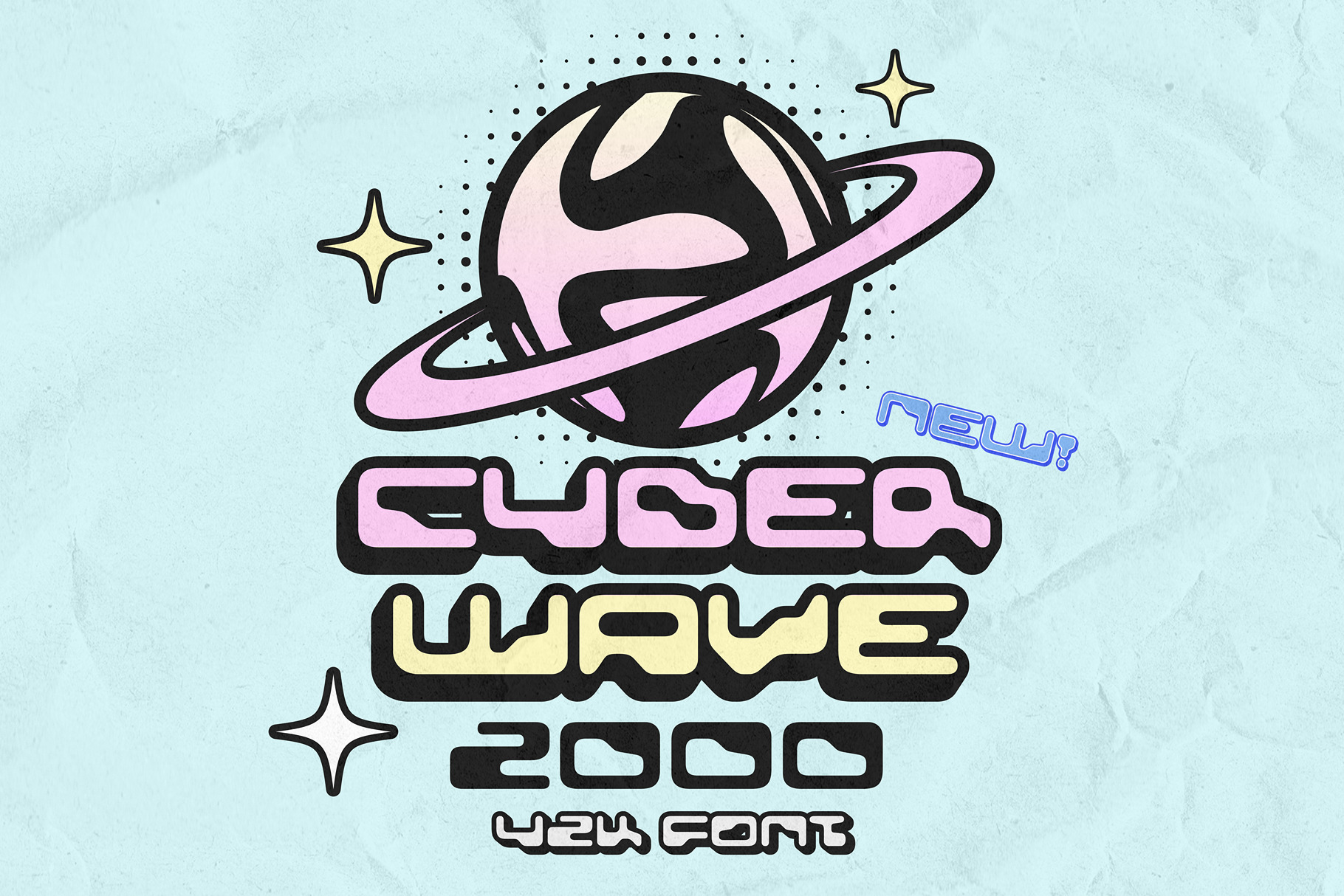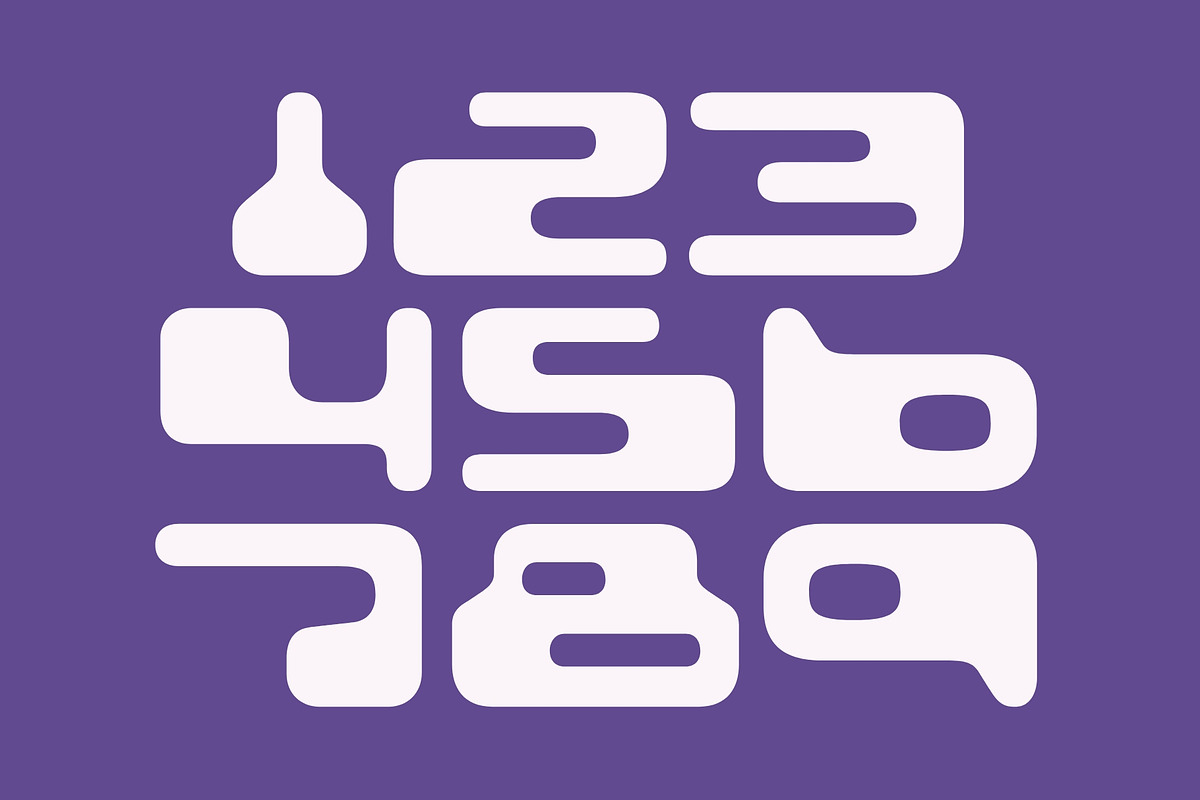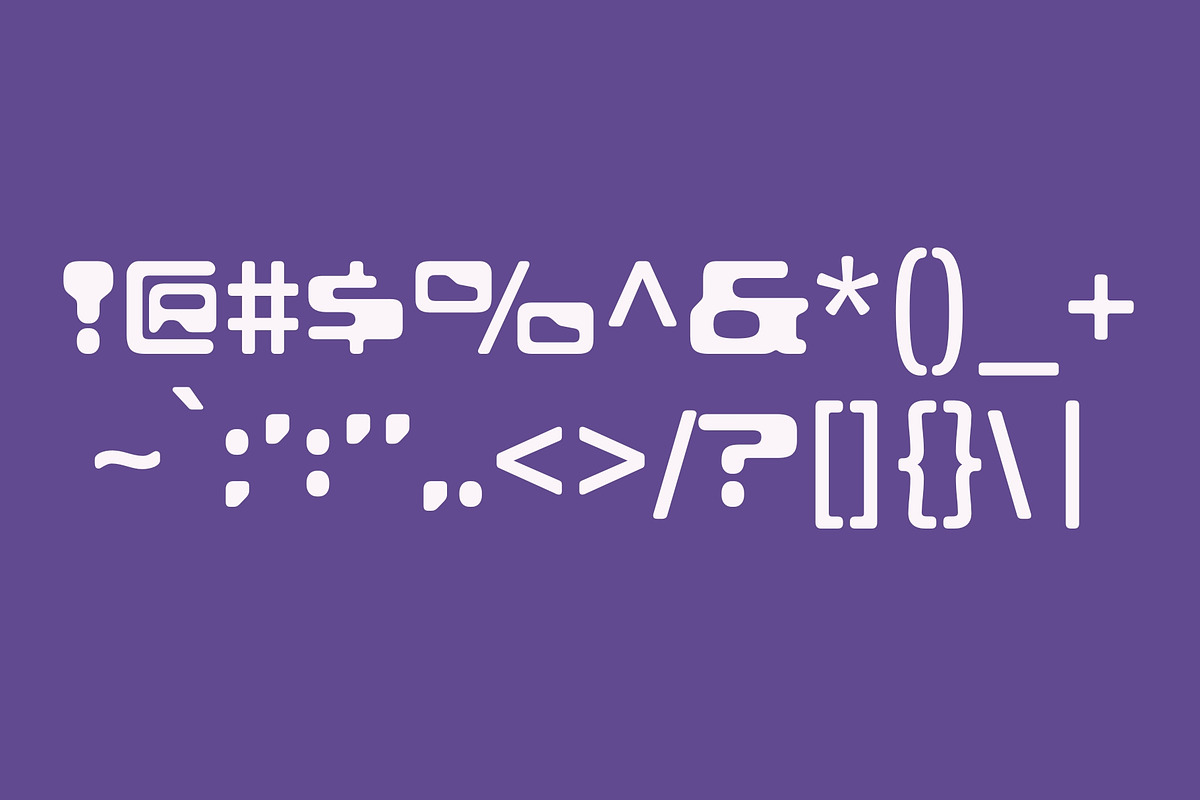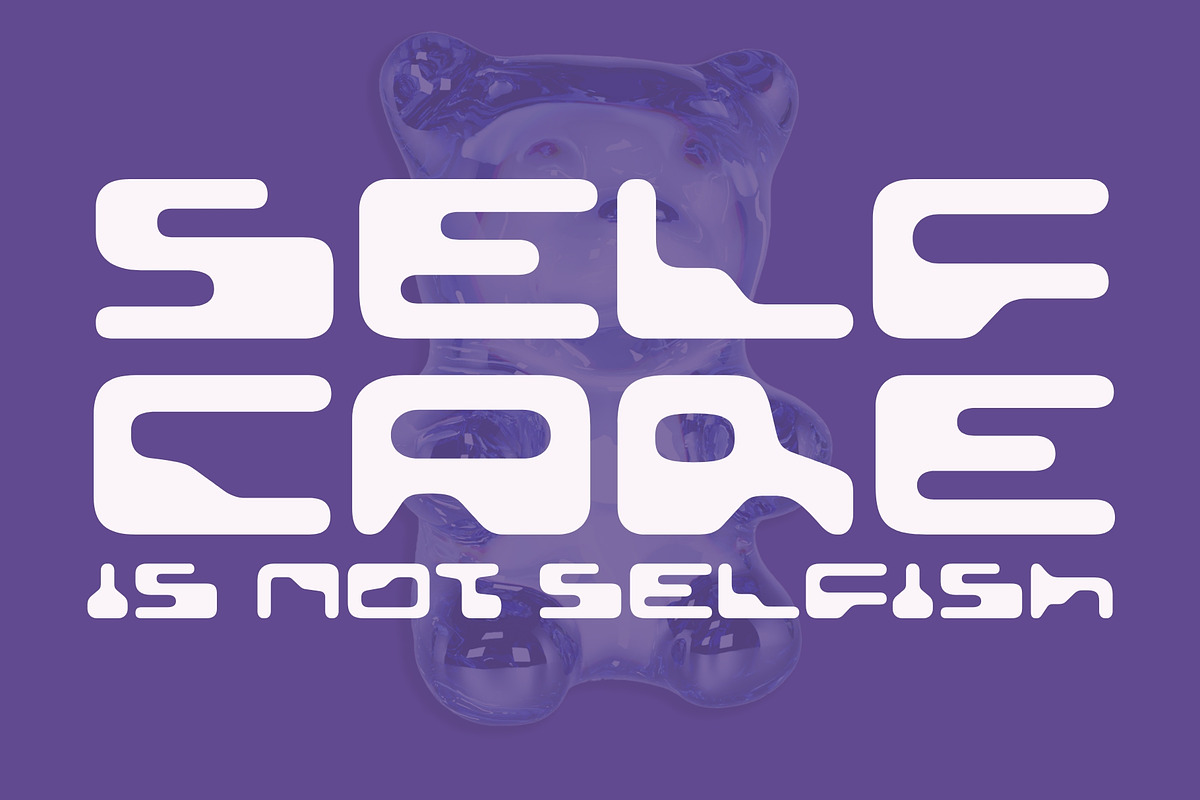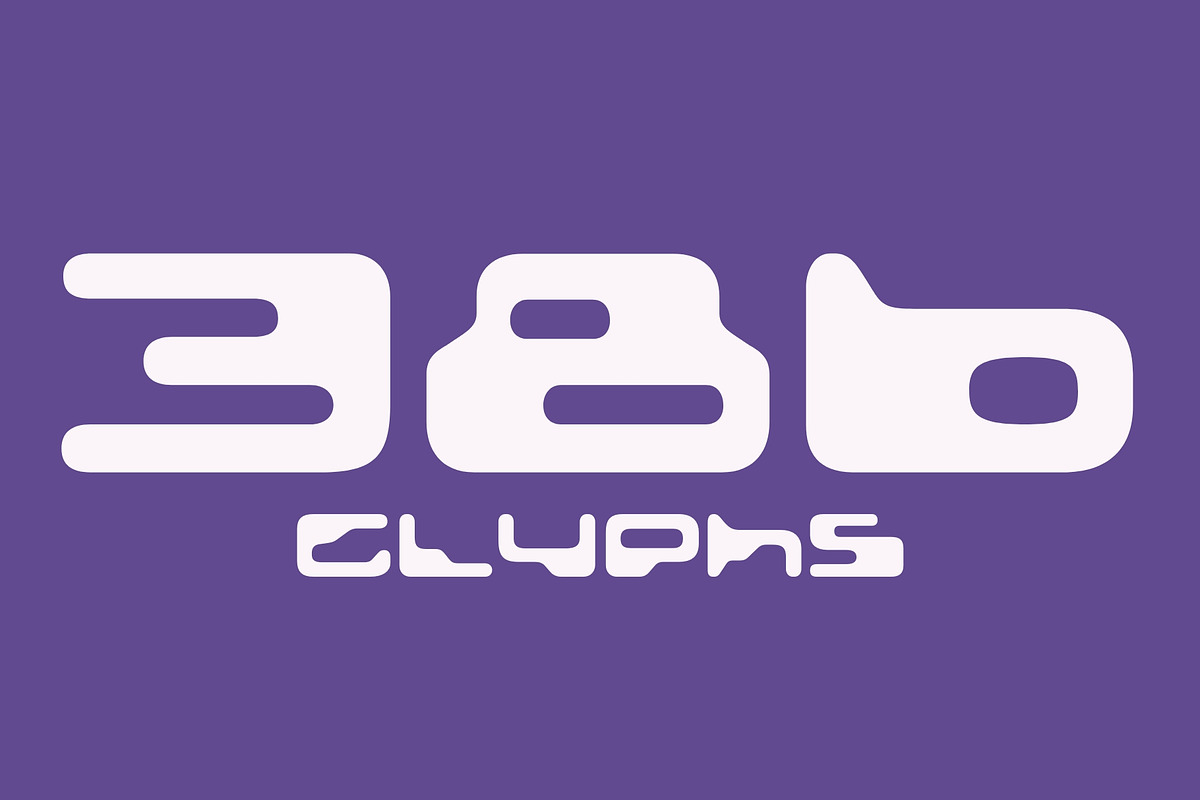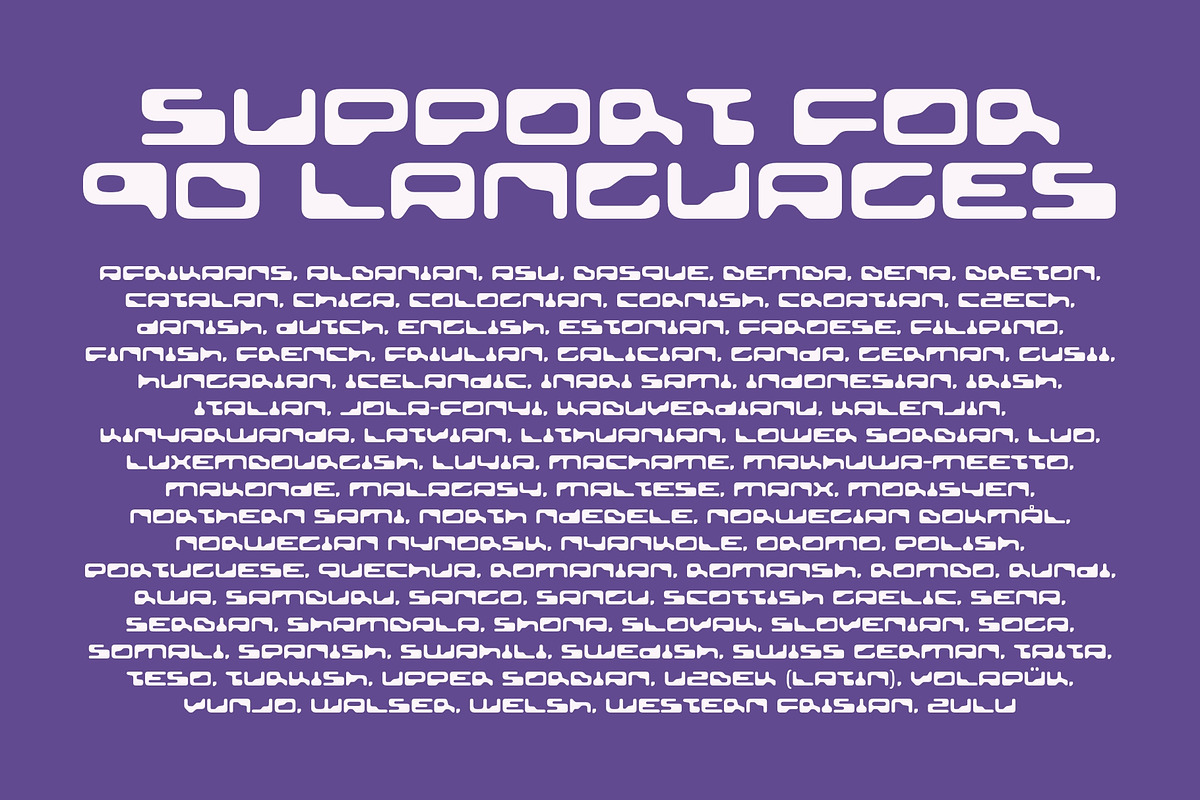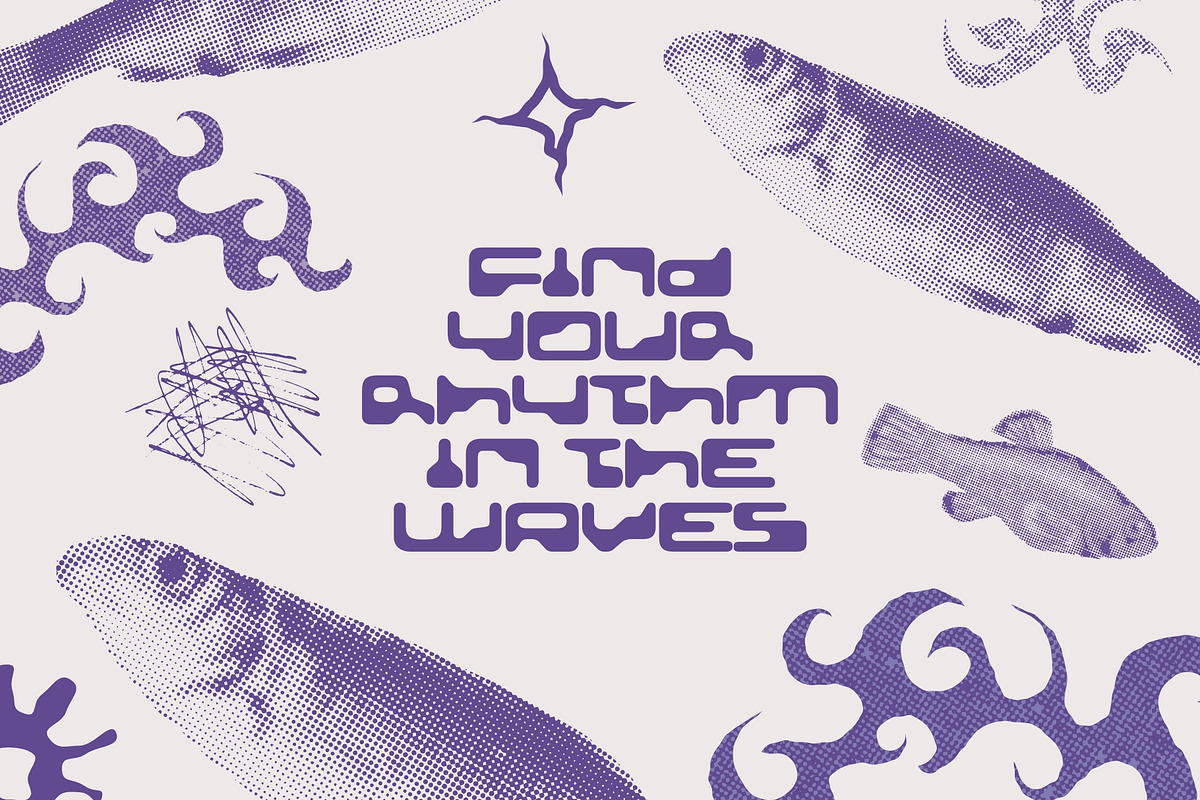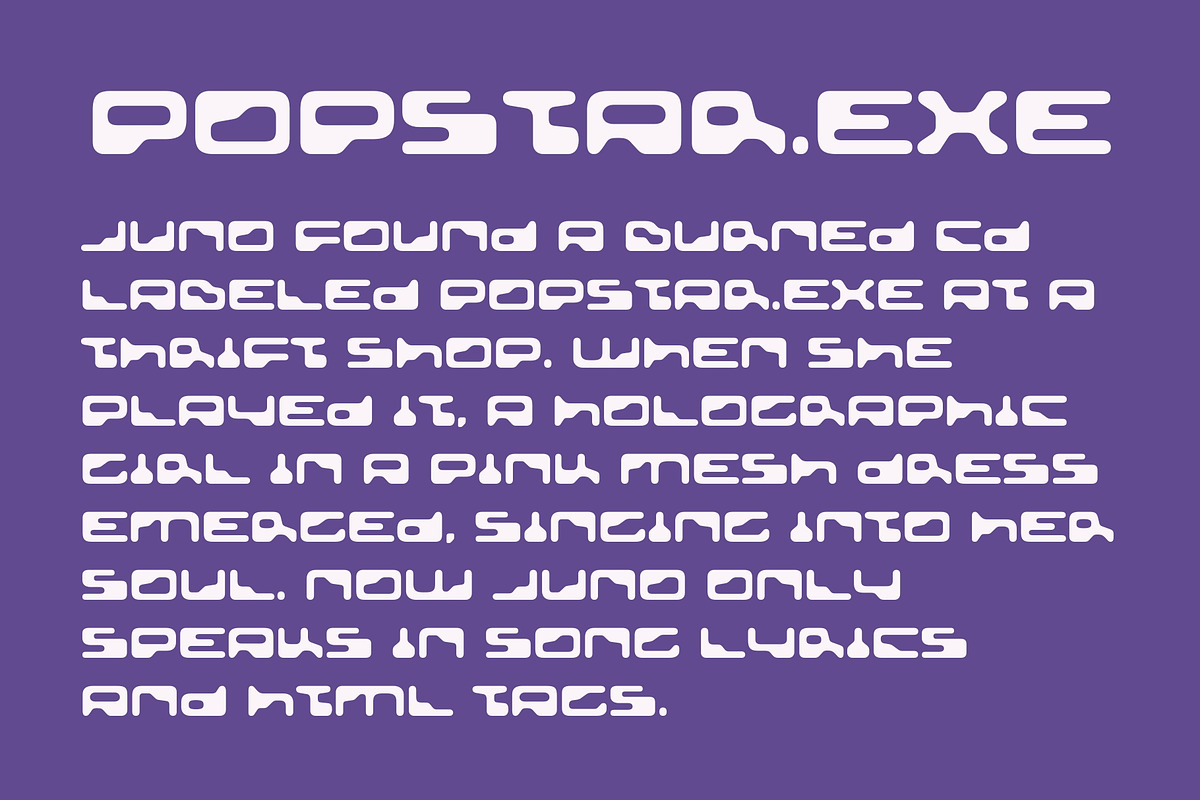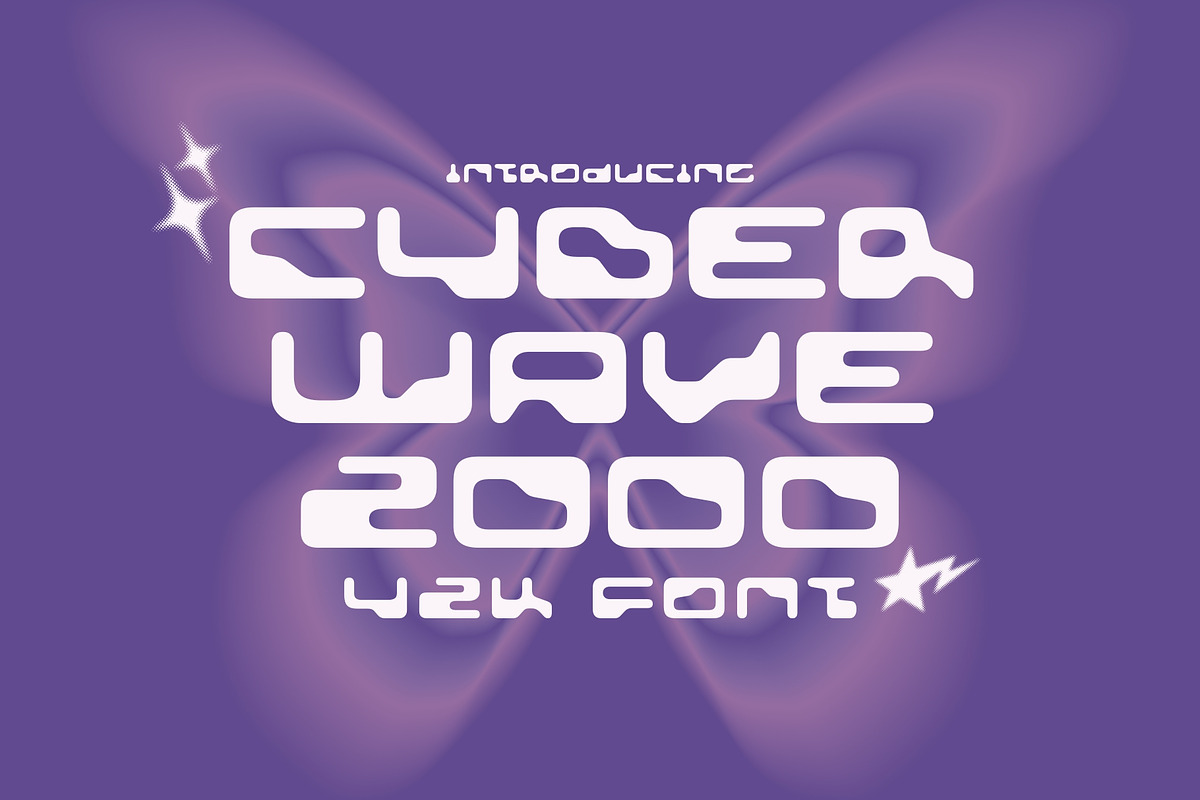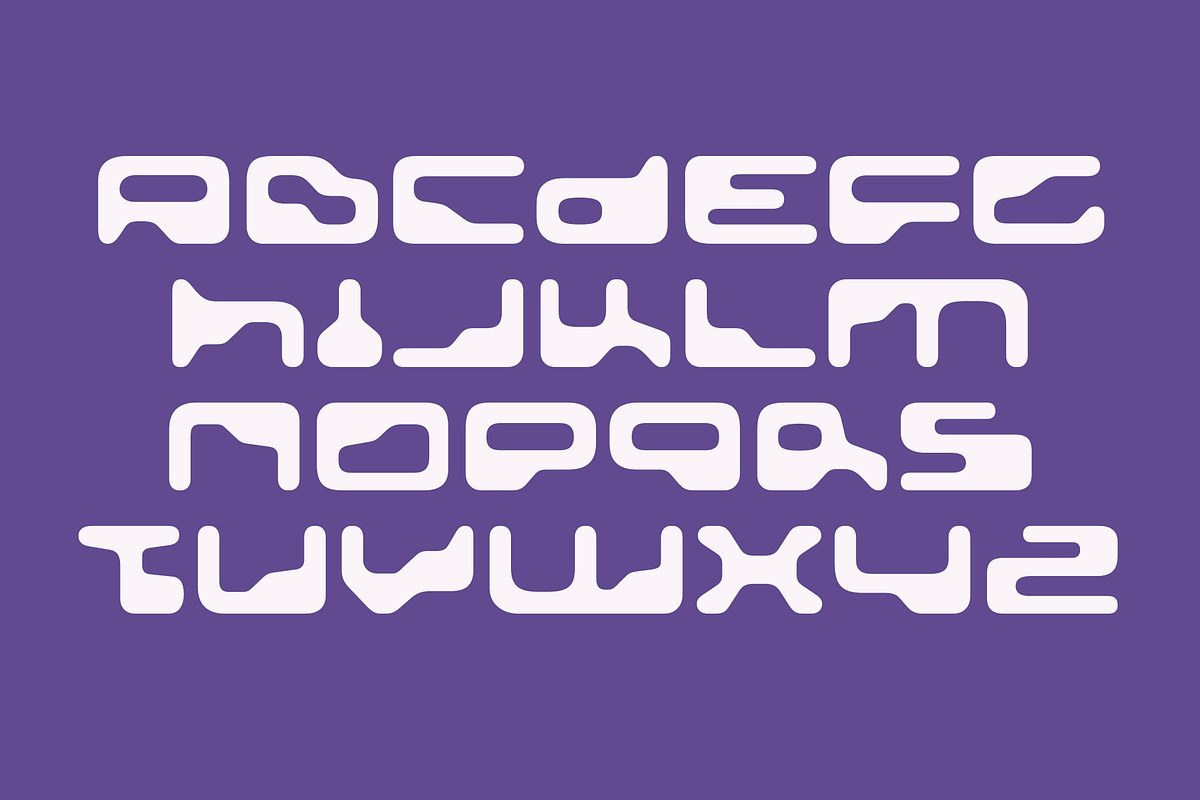
Cyberwave 2000 - Digital Y2K Font
Step into a digital daydream with Cyberwave 2000, a bold Y2K-inspired typeface that captures the glitchcore glamour, chrome-coated aesthetics, and futuristic optimism of the early internet era. This font oozes turn-of-the-millennium attitude with sleek curves, synthetic edges, and a distinctly cyber-pop personality.
Whether you’re designing vaporwave posters, album covers, event flyers, techwear branding, or nostalgic social content, Cyberwave 2000 delivers maximum retro impact with zero hesitation. It’s the perfect font for creatives who want to reboot the past and ride the pixelated pulse of the future.
- Fully Y2K-optimized and designed for bold digital aesthetics
- Perfect for: music visuals, gaming titles, throwback fashion, rave flyers, and virtual branding